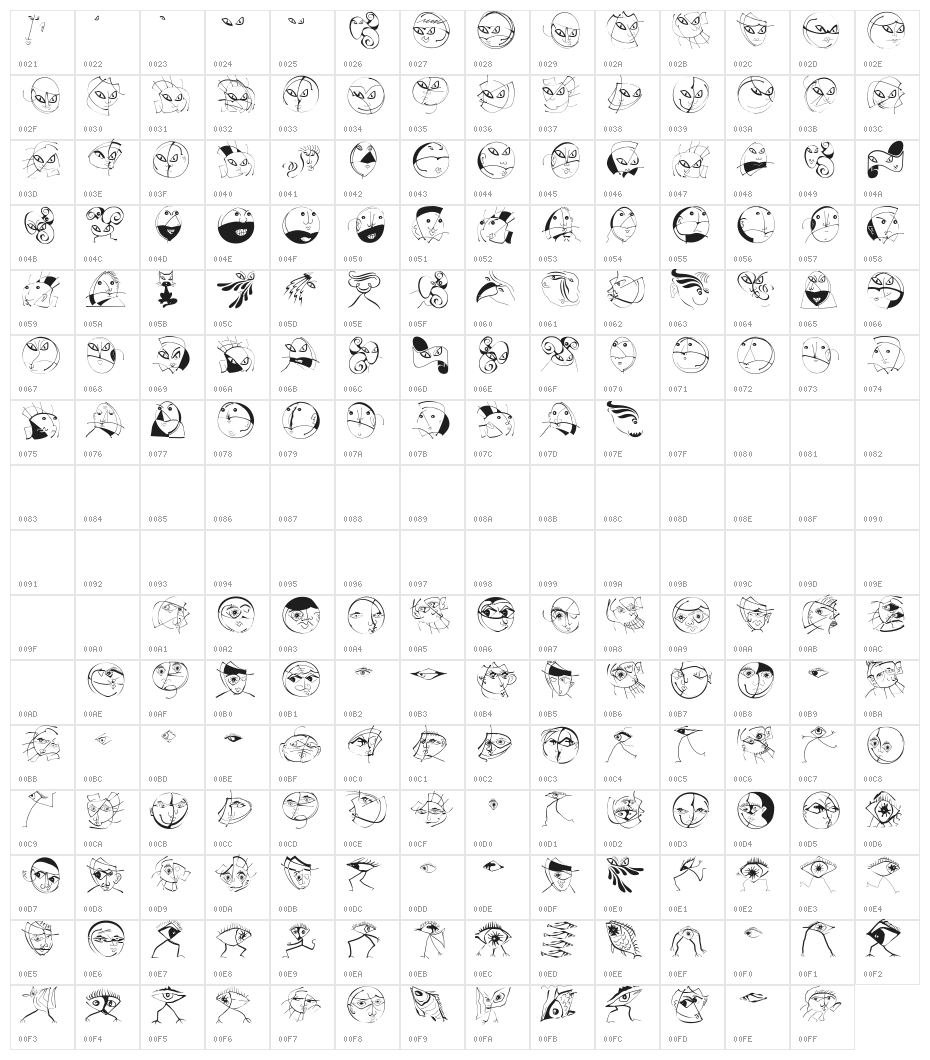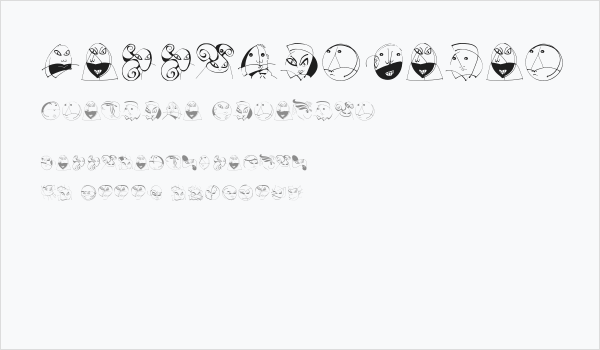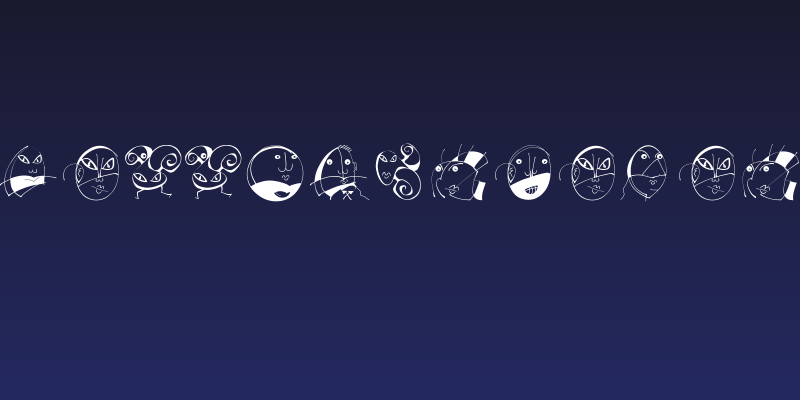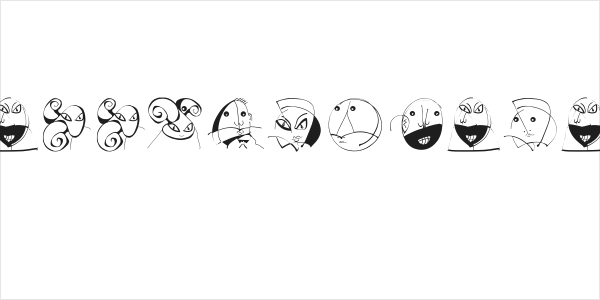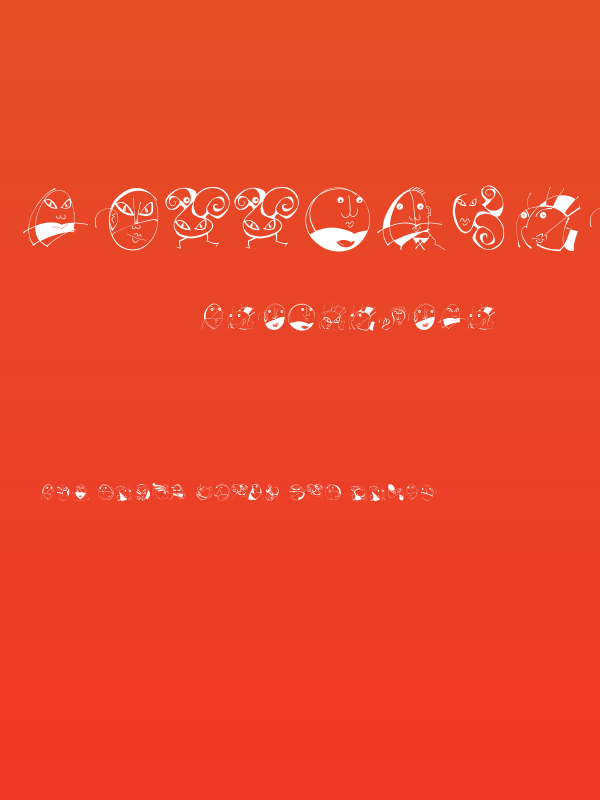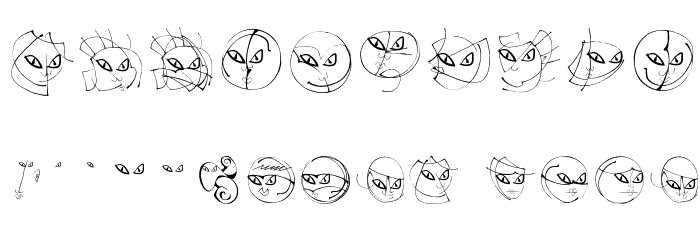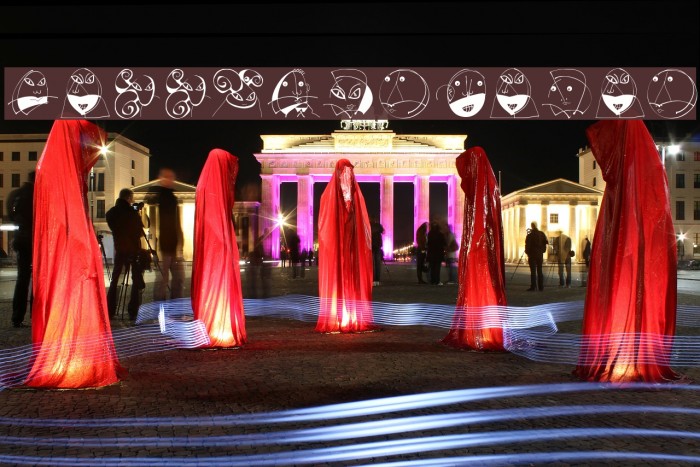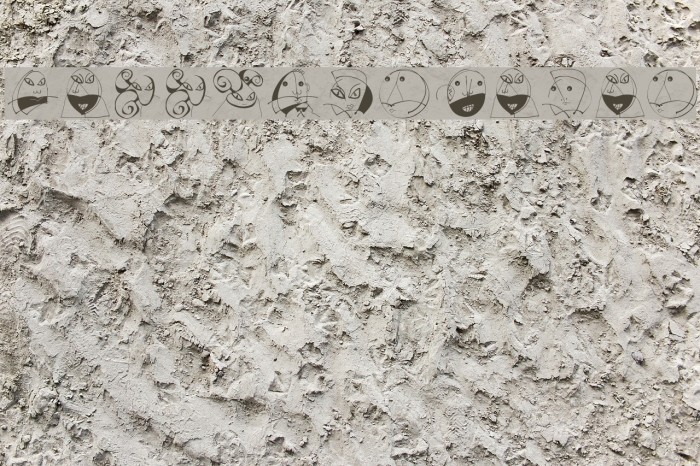
HelloSirPeter Font
HelloSirPeter Description
This is not a valid font. The image contains a series of abstract, cartoon-like faces instead of traditional alphanumeric characters. Each character is represented by a unique face with varying expressions and artistic styles, making it unsuitable for typical text representation. The design is playful and creative, focusing more on visual art than on legibility or typographic function.
| Overall Style | Artistic, Abstract |
| Use Case | Decorative artwork, Illustrations |
| Proposed Projects | This design could be used for artistic projects, such as illustrations, graphic design elements, or decorative artwork. |